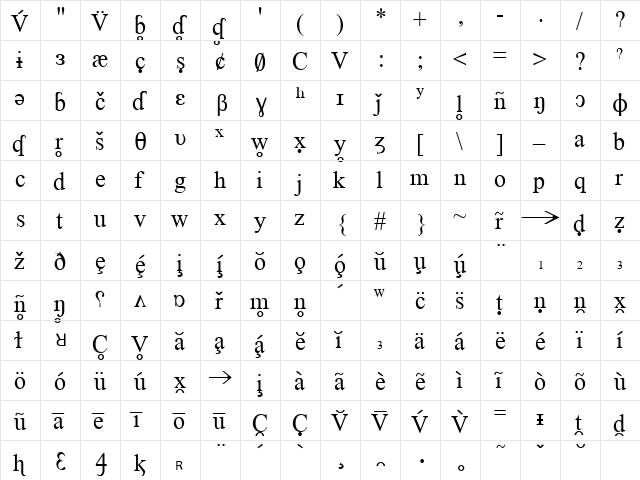
OKMA Fonetica
Design Context for OKMA Typeface
OKMA is a composed and adaptable typeface that performs quietly and consistently across a wide range of design contexts.